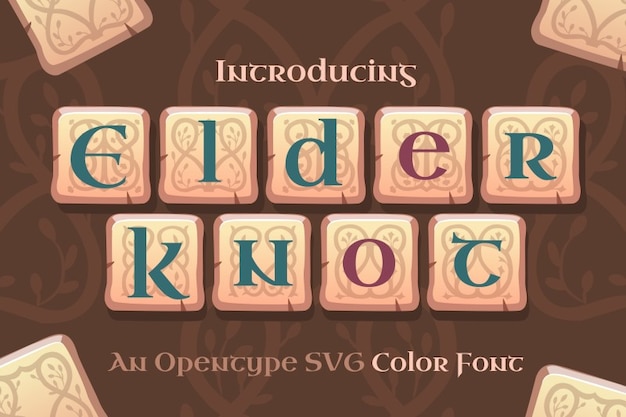
Elder Knot is a bold, blocky font inspired by Celtic and Irish traditions. Its intricate knot-like details and strong geometric shapes evoke ancient craftsmanship and cultural heritage. Perfect for logos, posters, or designs needing a touch of mysticism, Elder Knot combines historical charm with modern versatility, making it both striking and timeless.